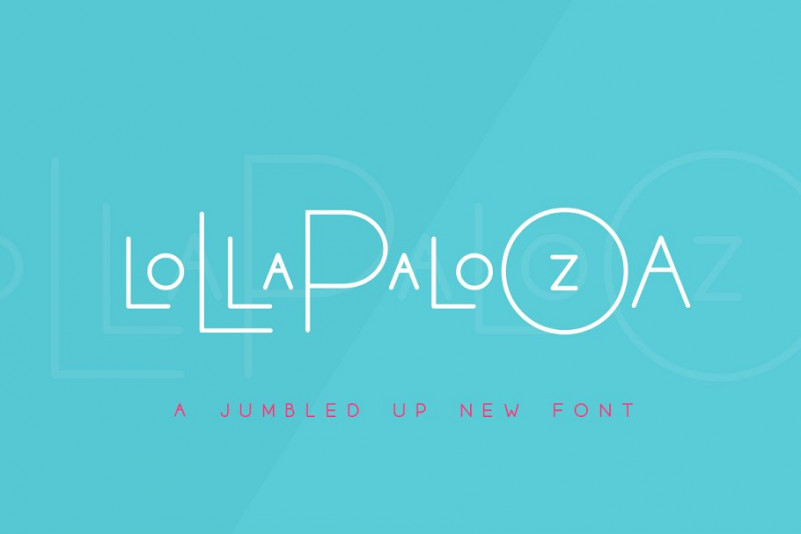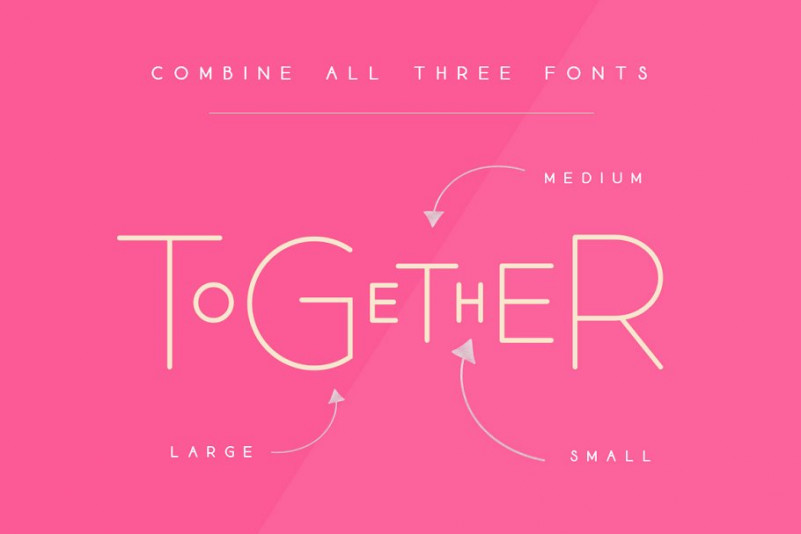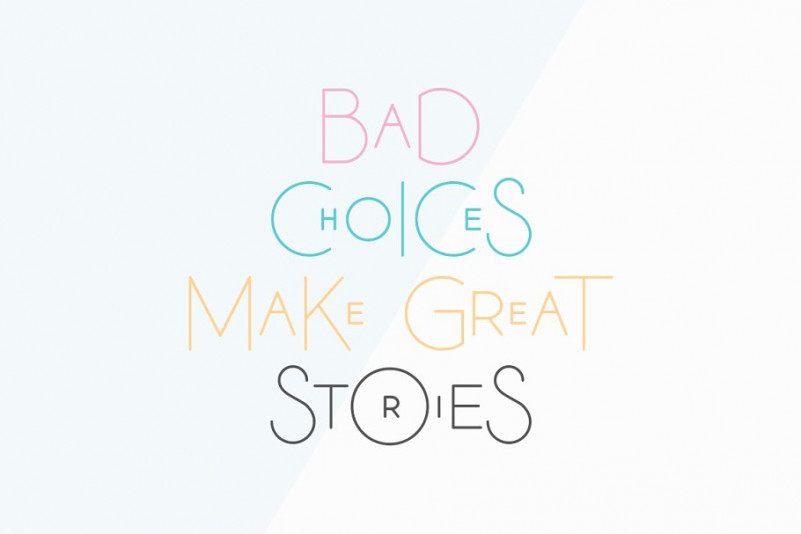
The Lollapalooza Font
Lollapalooza is here! But it’s not a festival in Chicago, it’s a wonderful new font! In fact, it’s a font trio and you can combine the small, medium and large versions together to create a unique and quirky new style!